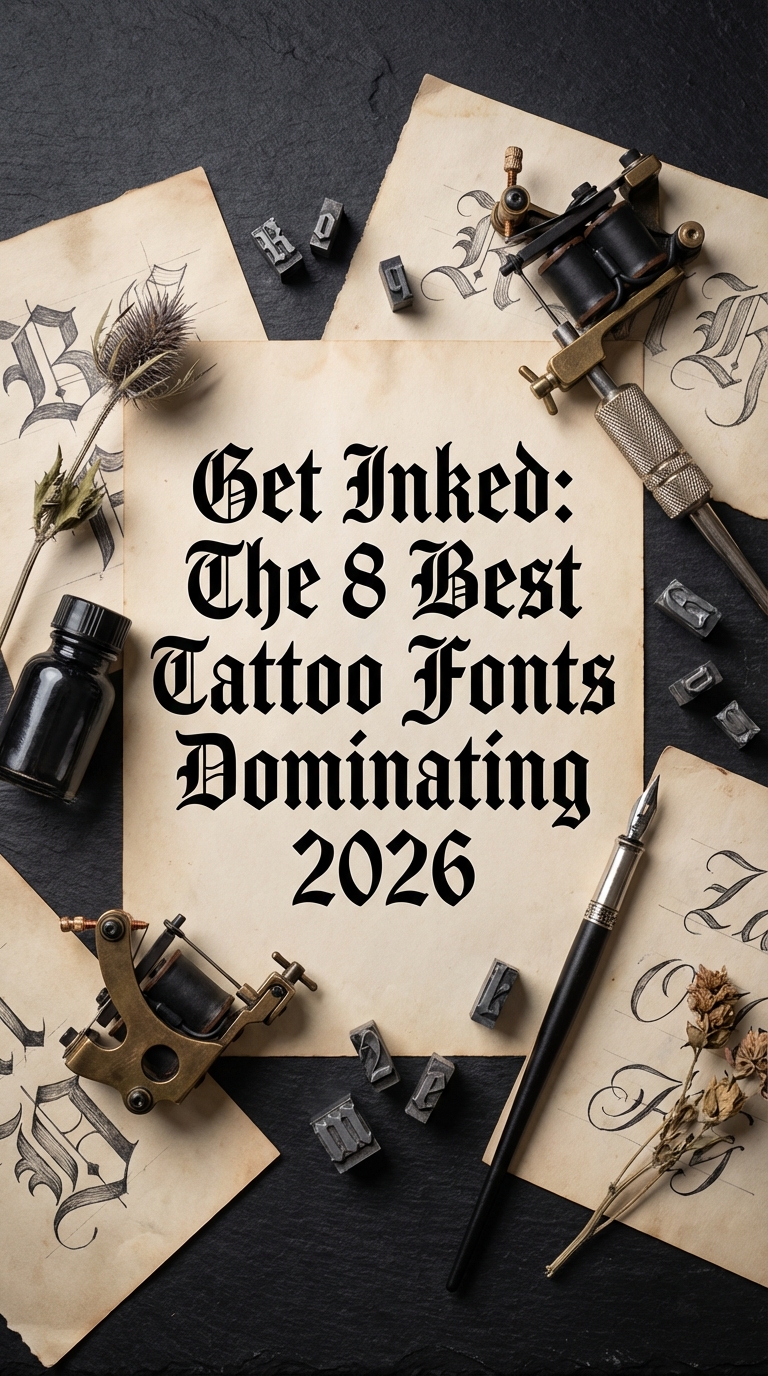
In the design landscape of 2026, authenticity and a handcrafted edge are everything. Tattoo fonts perfectly capture this spirit, bringing a bold, personal, and rebellious vibe to digital and physical projects alike. No longer just for skin, these typefaces are being used by top designers and crafters for everything from logos and apparel to custom invitations and posters. To help you stay on-trend, we’ve curated a list of the 8 most popular tattoo fonts right now, each one guaranteed to give your work the distinct character and attitude it deserves.
1. Tattoo Beast
Tattoo Beast is an unyielding blackletter font that channels the raw, visceral energy of classic tattoo lettering into a modern digital format. Dansdesign delivers a typeface that feels both timeless and aggressively current, with thick, confident strokes and razor-sharp details that demand attention. It’s the kind of font that doesn’t just sit on the page; it carves its presence, making it a go-to for projects that need to convey strength, rebellion, and unapologetic style.
- Intricate blackletter forms with a modern, sharp finish
- A full set of uppercase and lowercase characters, numerals, and punctuation
- High-contrast strokes that maintain clarity even in complex designs
- Includes stylistic alternates and ligatures to enhance its custom-inked feel
- Authentic chicano-style lettering and body art mockups
- Hard-hitting logos for metal bands, apparel brands, and motorcycle clubs
- Edgy editorial headlines and poster designs
- Packaging and branding for products with a rebellious identity
2. Tattoo
Tattoo from OWPictures delivers the raw, authentic energy of a custom ink-shop script directly to your design toolkit. This font masterfully balances the grit of street art with the elegant flow of handwritten lettering, creating a look that is both rebellious and meticulously crafted. Its bold, high-contrast strokes and organic ligatures give it a dynamic and personal feel, making any text feel like a one-of-a-kind piece of body art. It’s a current and powerful choice for designers wanting to add an unapologetic, handcrafted statement to their work.
- Dynamic, high-contrast script style that mimics a tattoo artist’s hand.
- Includes a full set of stylistic alternates and ligatures for a natural, custom-lettered look.
- Comprehensive character set with uppercase, lowercase, numerals, and punctuation.
- Edgy branding for apparel lines, barbershops, and craft distilleries.
- Bold headings and quotes for social media graphics, posters, and album art.
- Logotypes and merchandise that demand a strong, handcrafted identity.
3. Western Tattoo
Western Tattoo is a rugged serif font from GraphicsNinja that masterfully fuses the bold spirit of traditional Americana tattoos with the untamed grit of the Wild West. This font isn’t just about lettering; it’s about attitude. Its sharp, confident serifs and strong, unwavering strokes create an immediate sense of heritage and rebellion, making it feel like it was chiseled by an outlaw artisan. Perfect for projects that need to convey strength and a timeless, rebellious edge, Western Tattoo stands out with an authentic vibe that is both vintage and powerfully current.
- Sharp, chiseled serifs for a distinct and memorable look.
- A high-contrast design that ensures legibility and impact.
- Comprehensive character set including uppercase, lowercase, and punctuation.
- Subtle, authentic texturing that mimics hand-inked lettering.
- Branding for distilleries, barbershops, and vintage-inspired menswear.
- Headings on posters, event flyers, and album covers.
- Logotypes and apparel graphics for motorcycle clubs or rock bands.
- Tattoo studio marketing and flash sheet designs with a classic feel.
4. Epic Tattoo
Epic Tattoo immediately evokes the raw, unfiltered energy of a classic American traditional tattoo parlor. It’s the kind of lettering you’d expect to see inked on a sailor’s bicep—bold, unapologetic, and steeped in history. CraftBundles has created a font that isn’t just a typeface; it’s a statement piece, blending vintage rebellion with a clean, modern edge that makes it incredibly versatile for current design projects.
- Bold, high-contrast letterforms with sharp, clean lines.
- Strong influence from traditional blackletter and sailor tattoo styles.
- Includes a full set of uppercase characters, numerals, and essential punctuation.
- Authentic, handcrafted feel without sacrificing legibility.
- Branding for tattoo studios, barbershops, and craft breweries.
- Apparel design, including t-shirts, hoodies, and hats.
- Event posters for concerts, festivals, and motorcycle shows.
- Logotypes and headlines that require a strong, rebellious vibe.
5. Tattoo Y2k Doodle
Tattoo Y2k Doodle is like finding a secret love note scrawled in the back of a high school notebook; it’s a burst of raw, unfiltered creativity. This dingbat font from Bee piyanuch is less about lettering and more about storytelling through symbols. Each glyph—from thorny hearts and spiky stars to whimsical butterflies and alien heads—channels a rebellious, hand-poked tattoo aesthetic that feels both deeply personal and perfectly on-trend. It’s the ideal toolkit for designers looking to inject a dose of nostalgic, unapologetic personality into their work, transforming simple layouts into something that feels handmade, edgy, and alive with youthful energy.
- A complete set of Y2k-inspired dingbat symbols and doodles
- Authentic hand-drawn, “flash tattoo” aesthetic with clean lines
- Includes iconic motifs like hearts, stars, aliens, and tribal-style shapes
- Each character is a unique, high-quality graphic element
- Creating trendy graphics for social media, streetwear, or album art
- Adding edgy, decorative accents to branding, posters, and zines
- Designing authentic Y2k-themed web layouts and marketing materials
- Developing unique patterns for textiles, packaging, or digital backgrounds
6. Star Tattoo
Star Tattoo is an absolute must-have for designers crafting branding with a mystical, Y2K, or edgy pop-punk vibe. This dingbat font from PraewDesigns isn’t for typing words; it’s a brilliant toolkit of celestial symbols designed to be scattered across your work like authentic ink. Each star carries a hand-drawn, slightly gritty quality, making it incredibly easy to add trendy, flash-tattoo-style embellishments to logos, social posts, or apparel graphics without ever opening an illustration app. It’s the ultimate shortcut to achieving that effortlessly cool, customized aesthetic that defines so many current trends.
- A comprehensive collection of unique star-shaped dingbats and celestial symbols.
- An authentic, hand-inked aesthetic that mimics real tattoo flash art.
- Functions as a font for easy and fast placement of graphic elements.
- Crisp, high-quality vector shapes that scale perfectly for any project size.
- Adding quick, stylish accents to posters, album art, and social media graphics.
- Creating edgy patterns for packaging, textiles, and merchandise.
- Embellishing logos and typography for alternative or fashion-forward brands.
- A reference and mockup tool for tattoo artists designing flash sheets.
7. Tattoo Crucifix
Tattoo Crucifix exudes a raw, street-gothic energy, fusing the sharp, angular authority of traditional blackletter with the fluid, decorative flair of modern tattoo art. This font doesn’t just spell out words; it carves them with a bold, unapologetic attitude that feels both sacred and rebellious. Its intricate details and confident strokes make it an instant standout for any project that needs to command attention with a trending, hard-edged aesthetic.
- Highly decorative and ornate letterforms
- Strong blackletter influence with modern flourishes
- Includes uppercase, lowercase, and essential symbols
- Clean vector lines ideal for scaling in print and digital
- Authentic lettering for tattoo design mockups
- Streetwear apparel, band merchandise, and album art
- Branding for tattoo parlors or alternative lifestyle brands
- Impactful headlines for posters and editorial layouts
8. Tattoo Butterfly
Tattoo Butterfly feels less like a typeface and more like the confident, elegant stroke of a calligrapher’s pen. Evoking the deliberate artistry of fine-line tattoo scripts, it translates the intimacy of handwritten lettering into a versatile digital format. This font balances sharp, clean lines with graceful curves, creating a look that is both edgy and sophisticated. It provides a trending, personal touch that is perfect for designs meant to feel unique and deeply personal.
- Elegant script with high-contrast, calligraphic strokes
- A full set of uppercase and lowercase characters
- Includes decorative alternates and ligatures for a custom look
- Smooth, clean lines ideal for cutting machines and print
- Authentic tattoo lettering and flash sheet mockups
- Branding for boutiques, salons, and artisan creators
- Apparel graphics and merchandise with a handcrafted vibe
- Striking social media quotes and artistic post overlays
The Roots of Tattoo Typography: From Skin to Screen
The fonts you see today are deeply rooted in the history of tattoo art. Many draw inspiration from three core styles. American Traditional, pioneered by artists like Sailor Jerry, is known for its bold outlines, simple color palettes, and iconic imagery, influencing many classic, blocky tattoo fonts. Blackletter (or Gothic) styles have a much older origin, dating back to medieval manuscripts, and were adopted by early tattoo subcultures for their intimidating and ornate look. Finally, the elegant flow of Chicano-style script, with its fine lines and elaborate swirls, emerged from Los Angeles street culture and has heavily influenced modern script tattoo fonts.
Pro Tips for Readability and Impact
Tattoo fonts make a statement, but that statement can get lost if not used correctly. To ensure your design is both powerful and professional, keep these best practices in mind:
- Legibility is King: Due to their complexity, tattoo fonts are best for headlines, logos, and short phrases. Avoid using them for long paragraphs or at very small sizes, as they can become unreadable. Always test your text for clarity.
- Create Contrast with Pairing: Don’t pair two complex tattoo fonts together. Instead, create a strong visual hierarchy by combining your chosen tattoo font with a simple, clean, and neutral font like a sans-serif (e.g., Helvetica, Montserrat, or Roboto). This makes the decorative font the star of the show.
- Embrace Texture: These fonts often look best when they feel authentic. Consider overlaying a subtle grunge or paper texture to give your digital design a more tactile, “inked-on” appearance.
Beyond Apparel: Unexpected Uses for Tattoo Fonts
While perfect for t-shirts and posters, the rebellious energy of tattoo fonts can elevate many other projects. If you’re looking for fresh inspiration, try using them for:
- Craft Beverage Branding: Think labels for craft beer, small-batch whiskey, hot sauce, or artisan coffee. The handcrafted feel of the font perfectly matches the product.
- Event Branding: Design a memorable identity for a music festival, a motorcycle show, a pop-up restaurant, or even an unconventional wedding with an edgy theme.
- Custom Engraving Templates: Create designs for laser-engraved products like wooden signs, metal flasks, lighters, or leather goods. The bold lines of many tattoo fonts are ideal for this process.
- Digital Content Overlays: Produce eye-catching graphics for Twitch streams, YouTube channel art, or Instagram Reels, especially for content related to gaming, music, or street culture.
Technical Guide for Crafters and Designers
Working with highly stylized fonts can present some technical hurdles, especially for crafters using cutting machines like Cricut or Silhouette. Here’s what you need to know:
| Accessing Glyphs & Swashes | Many script tattoo fonts come with alternate characters, ligatures, and decorative swashes to make your text unique. These are often not accessible directly from your keyboard. To use them, you’ll need to open the Glyphs panel in Adobe Illustrator/Photoshop/InDesign or use your computer’s built-in character map application (Character Map on Windows, Font Book on Mac). |
| Welding for Cutting Machines | When you type a word in a script font, each letter is an individual, overlapping shape. If you send this directly to a cutting machine, it will cut each letter out separately, ruining the connected script. Before cutting, you must select the entire word and use the Weld (in Cricut Design Space) or Unite (in Adobe Illustrator’s Pathfinder) function. This merges all overlapping parts into a single, seamless shape that will cut perfectly. |
And that’s our roundup of the top tattoo fonts for your 2026 toolkit. Whether you need an elegant script or a heavy blackletter style, these typefaces provide the perfect way to add a dose of daring personality to your work. Now go ahead and make your designs truly unforgettable.